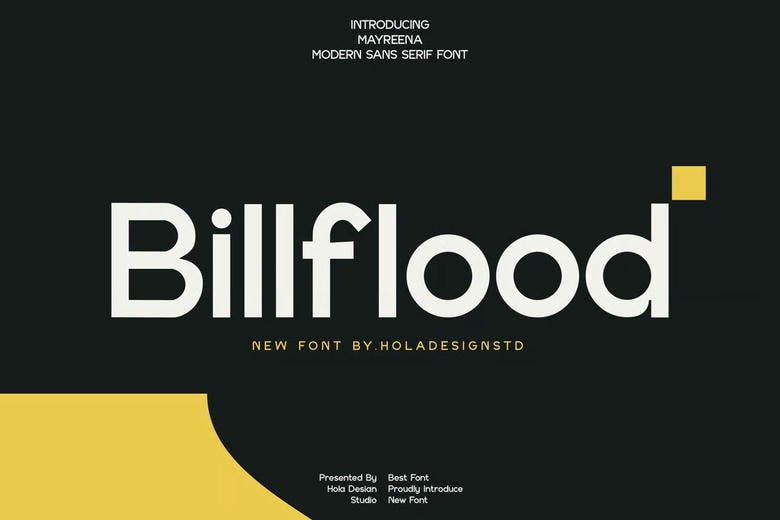
Billflood Font
Billflood is a good quality and free downloadable personal use sans serif typeface designed by holadesignstd. It is ideal in fancy logos, branding, travel promotion, layout magazines, beauty and product packaging, quotes or just as a classy font overlay on any background image.
Billflood Sans Serif Font